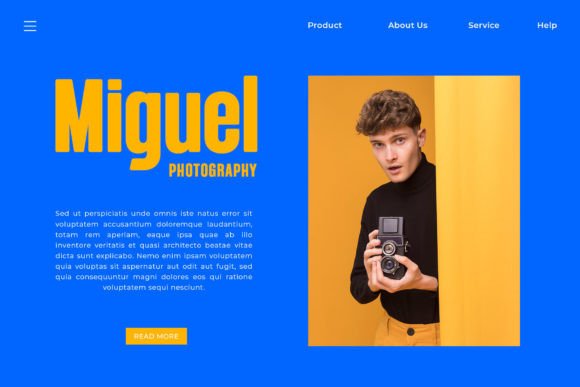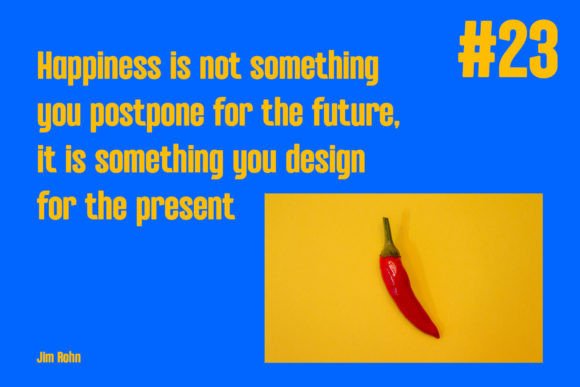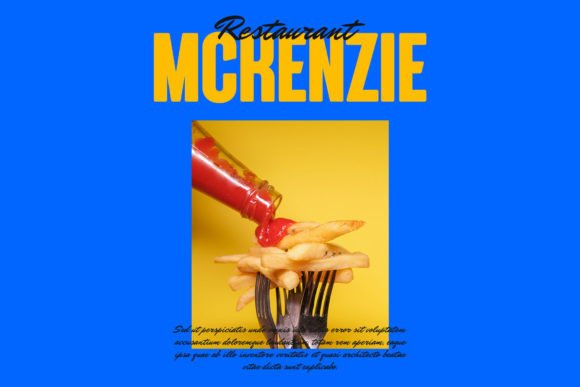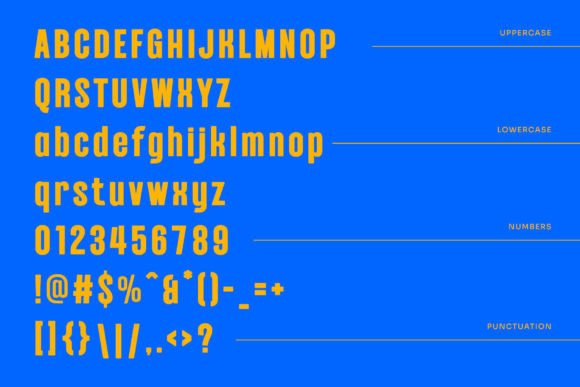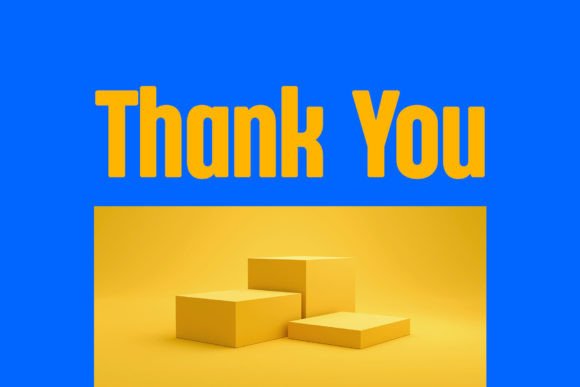
Introducing Granika: The Modern Condensed Sans Font for Creative Projects
Are you a designer or crafter looking for a font that can elevate your creative projects? Look no further than Granika, a modern and simple font that’s perfect for display headings, logos, branding, magazines, product packaging, and invitations. With its clean lines and smooth curves, Granika adds an extra touch of class to any project.
What is Granika Font?
Granika is a modern condensed sans font that’s designed to make a statement. Its sleek and minimalist design makes it perfect for projects that require a clean and sophisticated look. The font features clean lines, smooth curves, and a condensed style that’s ideal for headlines, titles, and short paragraphs of text.
Key Features of Granika Font
- Modern and Simple Design: Granika’s design is inspired by modern typography, making it perfect for creative projects that require a fresh and contemporary look.
- Clean Lines and Smooth Curves: The font features clean lines and smooth curves that give it a sophisticated and elegant look.
- Condensed Style: Granika’s condensed style makes it perfect for headlines, titles, and short paragraphs of text.
- Versatile: Granika can be used for a wide range of projects, including display headings, logos, branding, magazines, product packaging, and invitations.
Why Use Granika Font?
There are many reasons why designers and crafters should consider using Granika font for their creative projects. Here are a few:
- Elegance and Sophistication: Granika adds an extra touch of class to any project, making it perfect for high-end brands and luxury products.
- Readability: The font is highly readable, even at small sizes, making it perfect for body text and captions.
- Flexibility: Granika can be used for a wide range of projects, from digital designs to print materials.
- Easy to Pair: Granika pairs well with other fonts, making it easy to create harmonious and visually appealing typography.
How to Use Granika Font
Granika font can be used for a wide range of creative projects, including:
- Display Headings: Use Granika as a display font for headings, titles, and subtitles.
- Logos and Branding: Use Granika as a logo font or for branding materials, such as business cards and letterheads.
- Magazines and Newspapers: Use Granika as a headline font for magazines and newspapers.
- Product Packaging: Use Granika as a label font for product packaging.
- Invitations and Stationery: Use Granika as a font for invitations, greeting cards, and stationery.
Tips and Tricks for Using Granika Font
Here are a few tips and tricks for getting the most out of Granika font:
- Experiment with Font Sizes: Granika looks great at a range of font sizes, from small captions to large display headings.
- Play with Line Spacing: Adjusting the line spacing can help to create a more open and airy feel, or a denser and more compact look.
- Pair with Other Fonts: Granika pairs well with other fonts, so don’t be afraid to experiment with different combinations.
Granika font is a versatile and elegant font that’s perfect for creative projects that require a modern and sophisticated look. With its clean lines, smooth curves, and condensed style, Granika adds an extra touch of class to any project. Whether you’re a designer or crafter, Granika is a great choice for display headings, logos, branding, magazines, product packaging, and invitations.